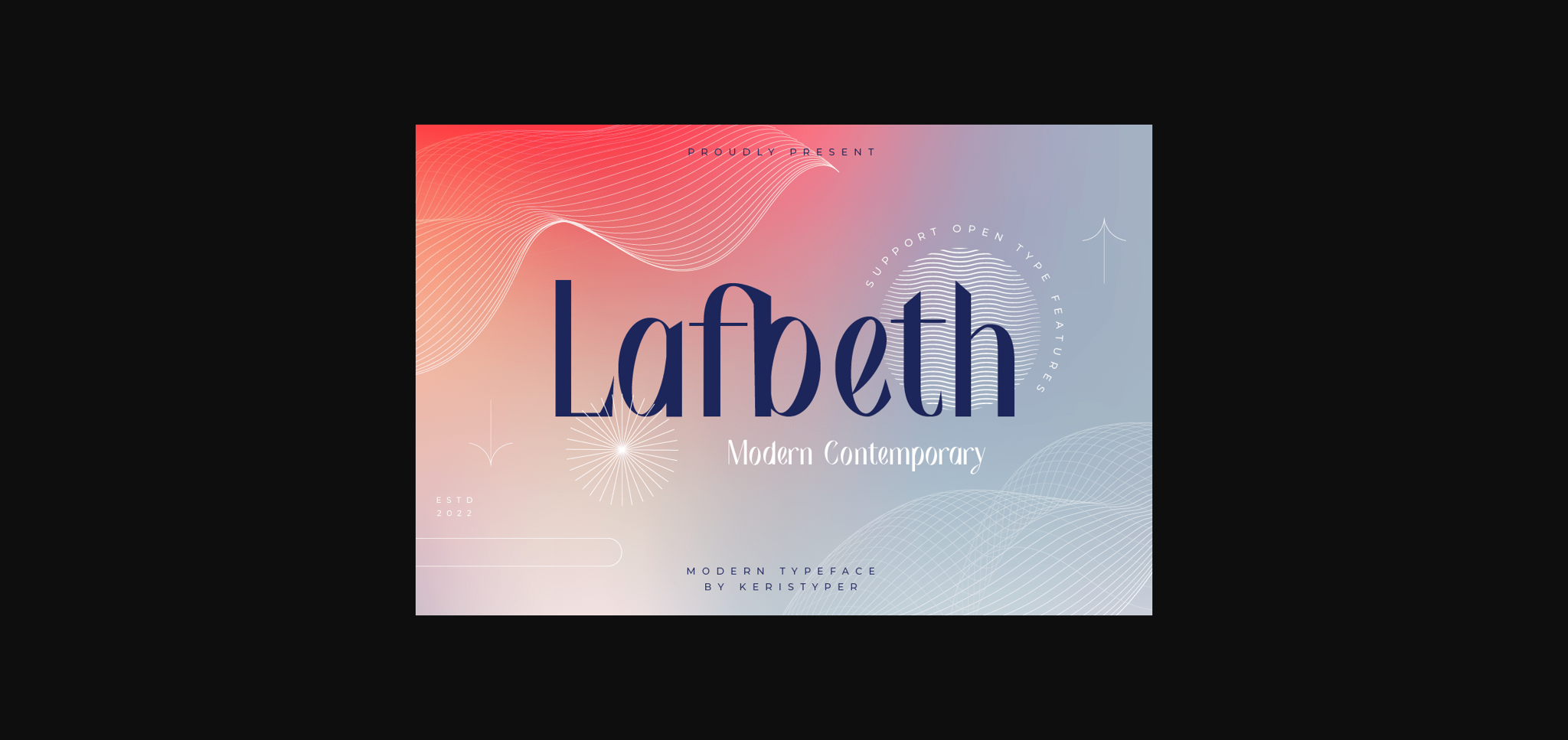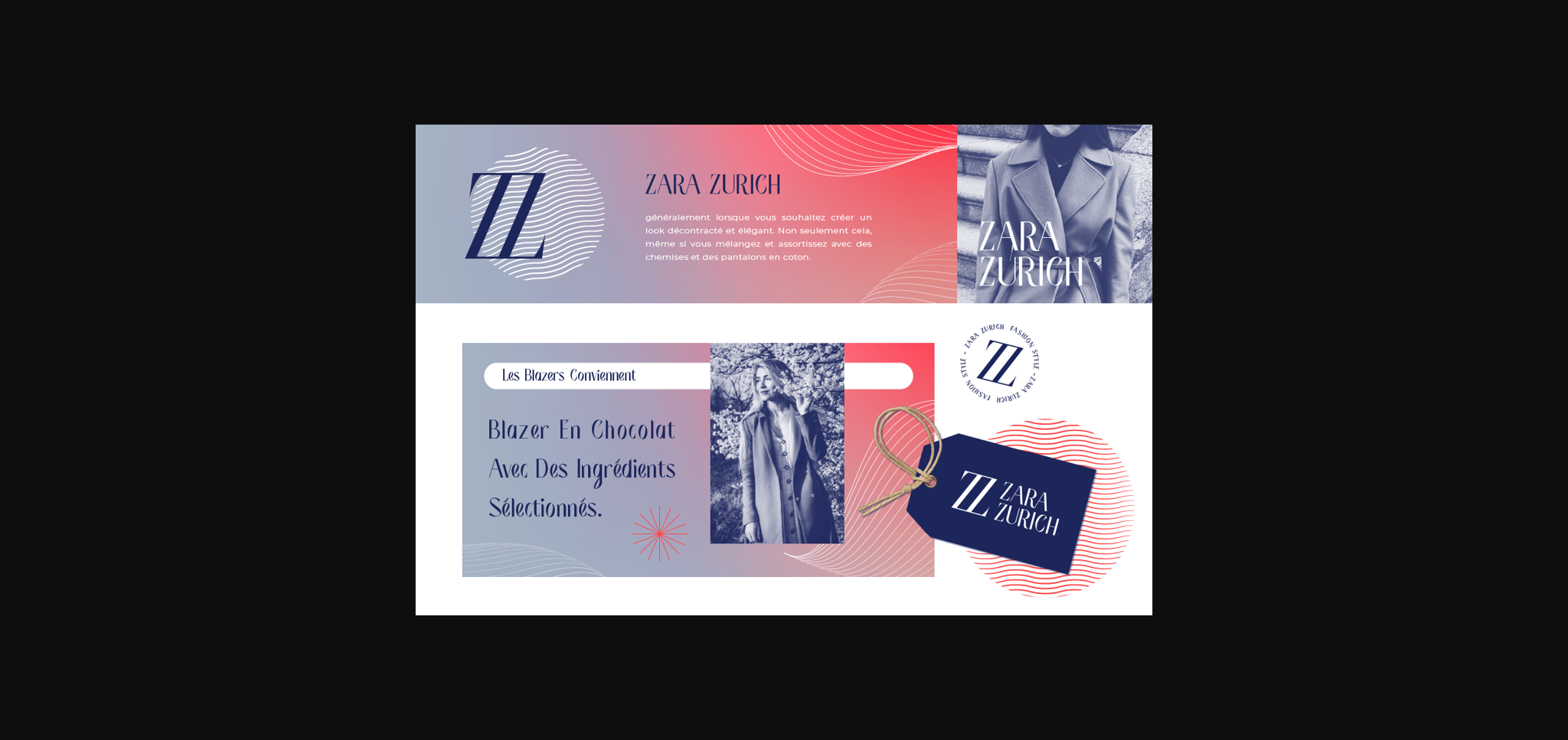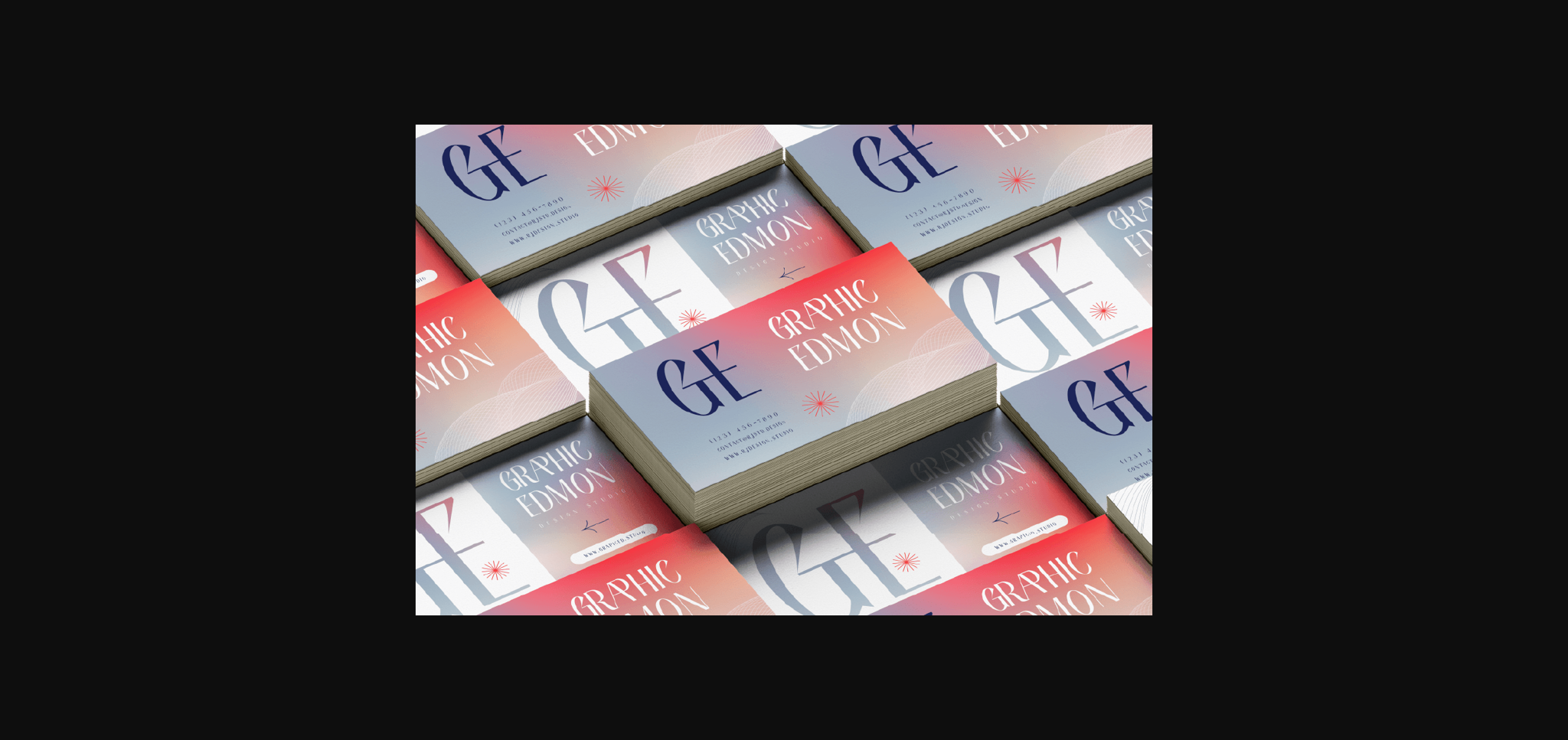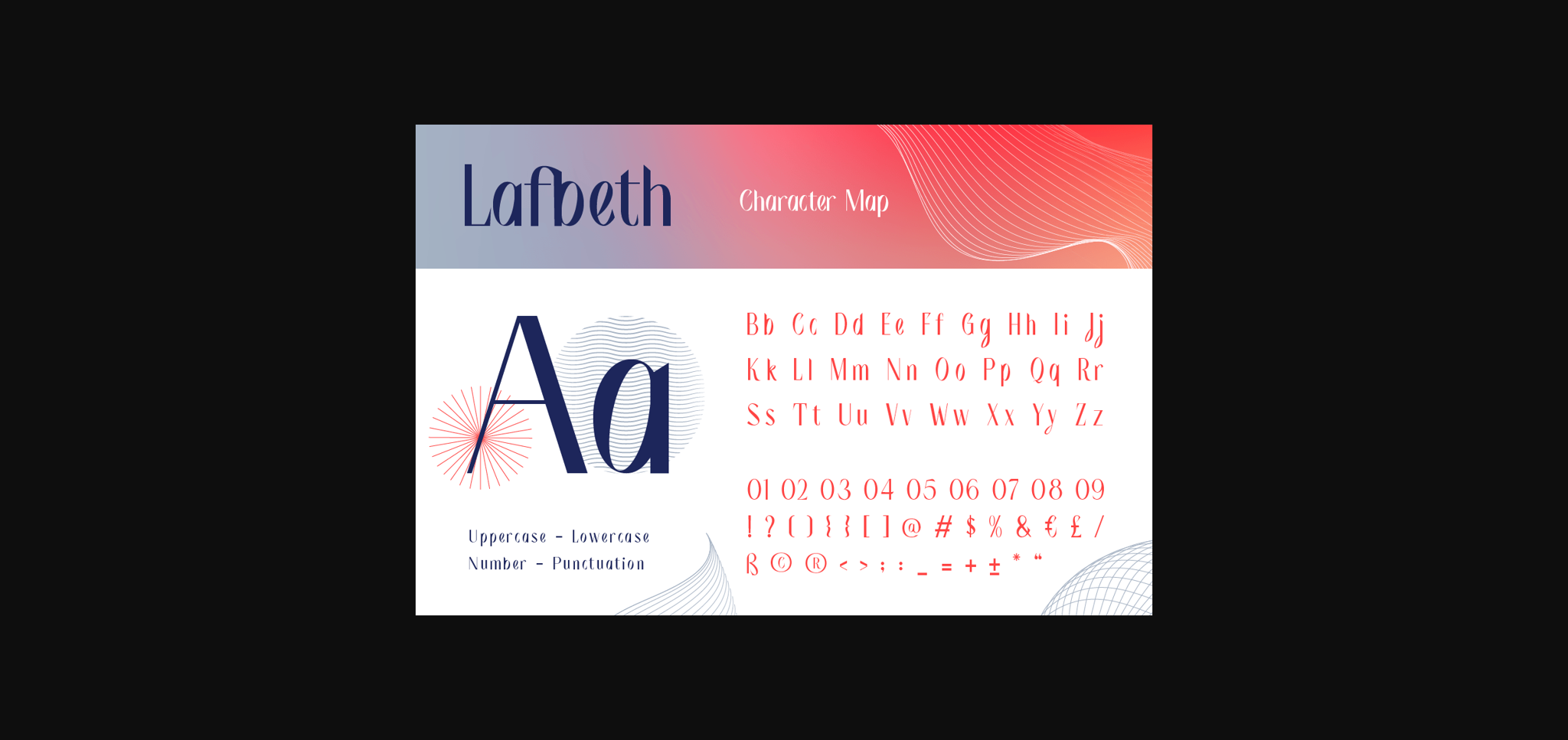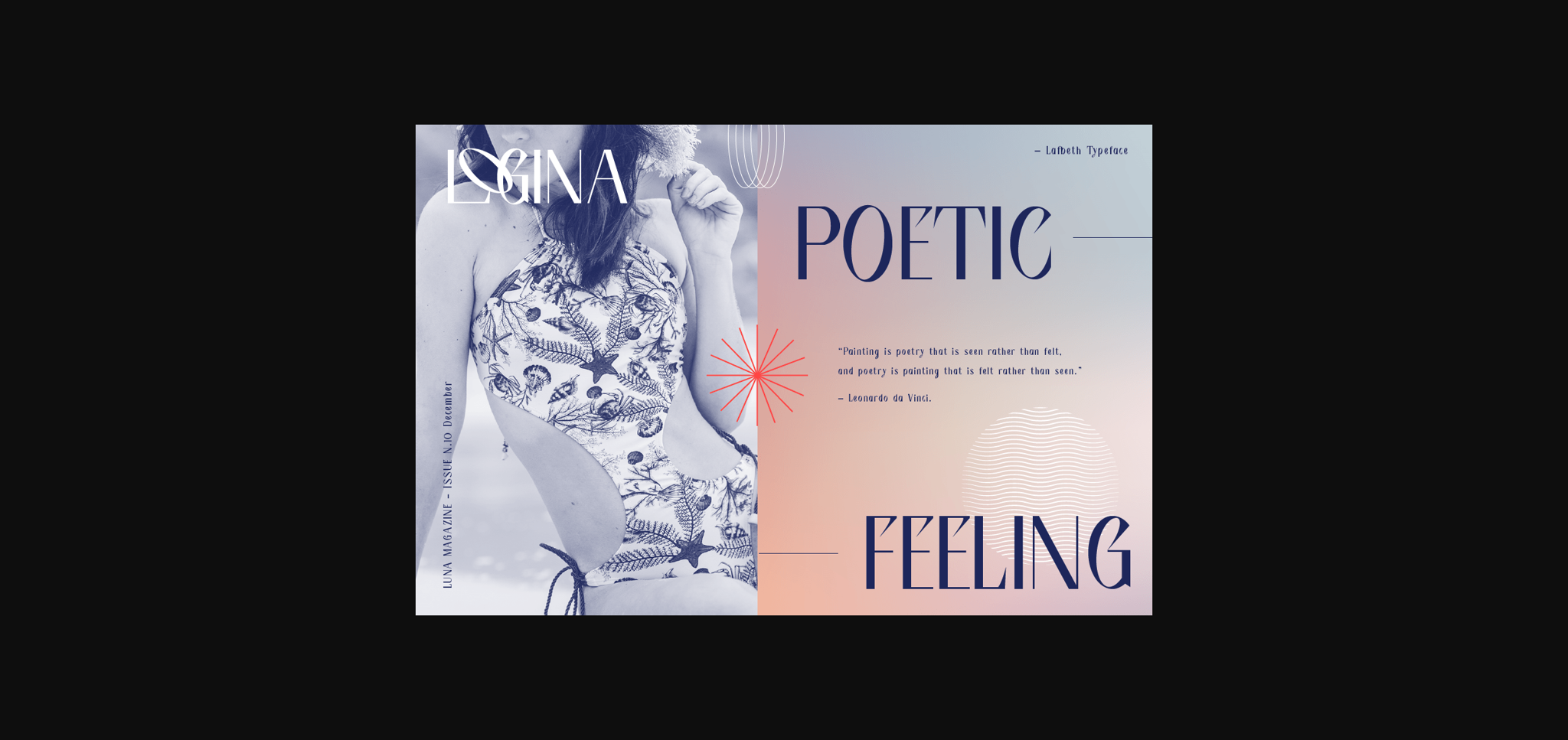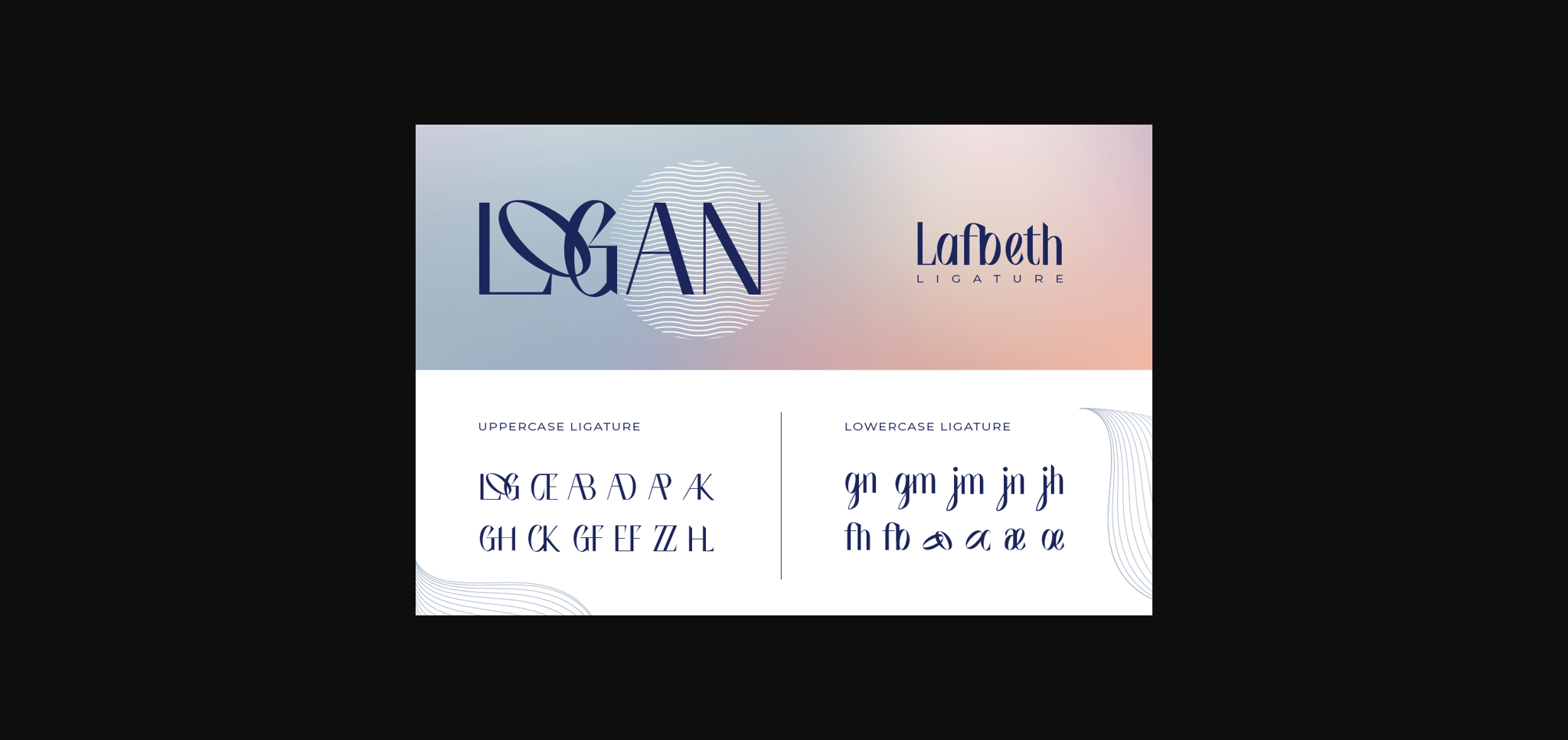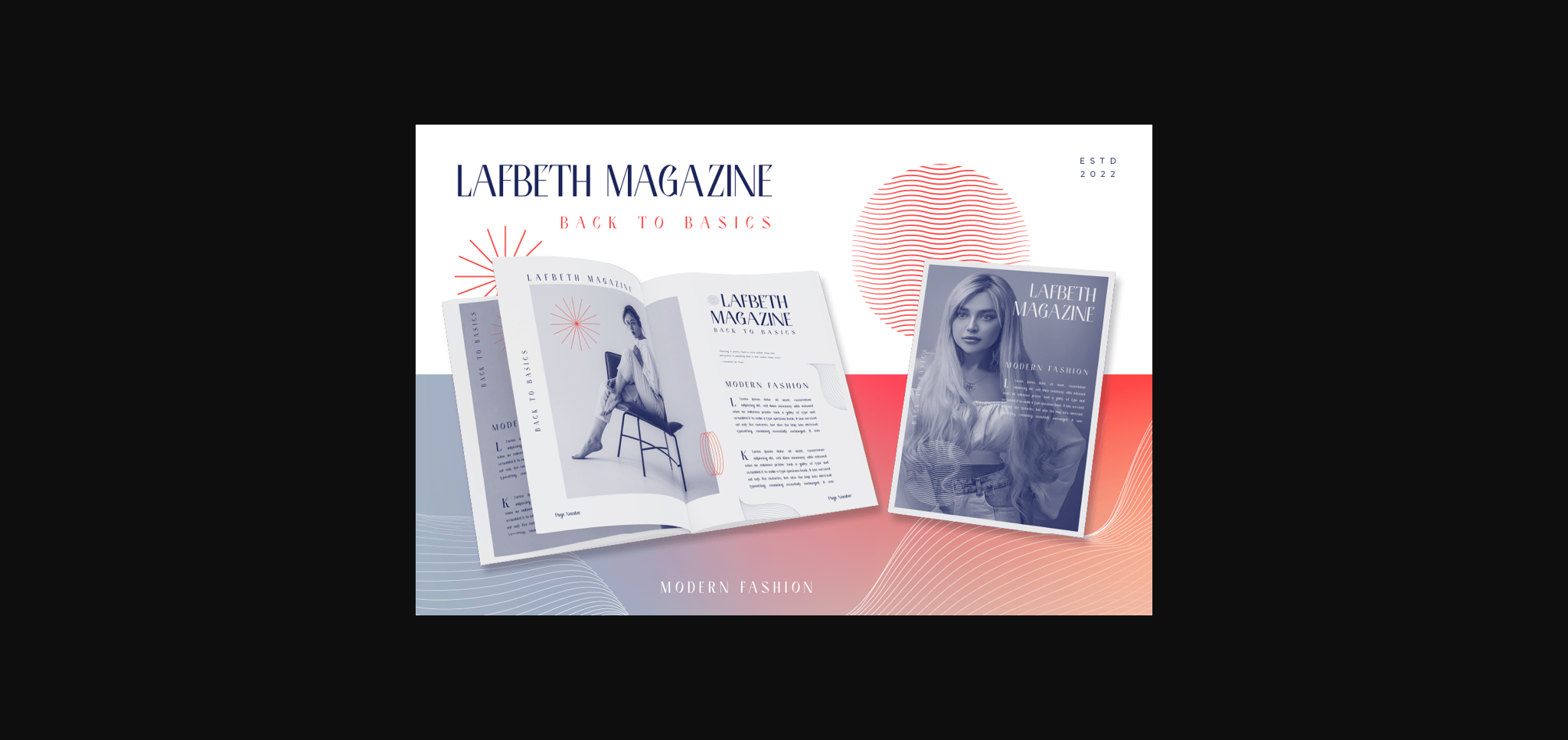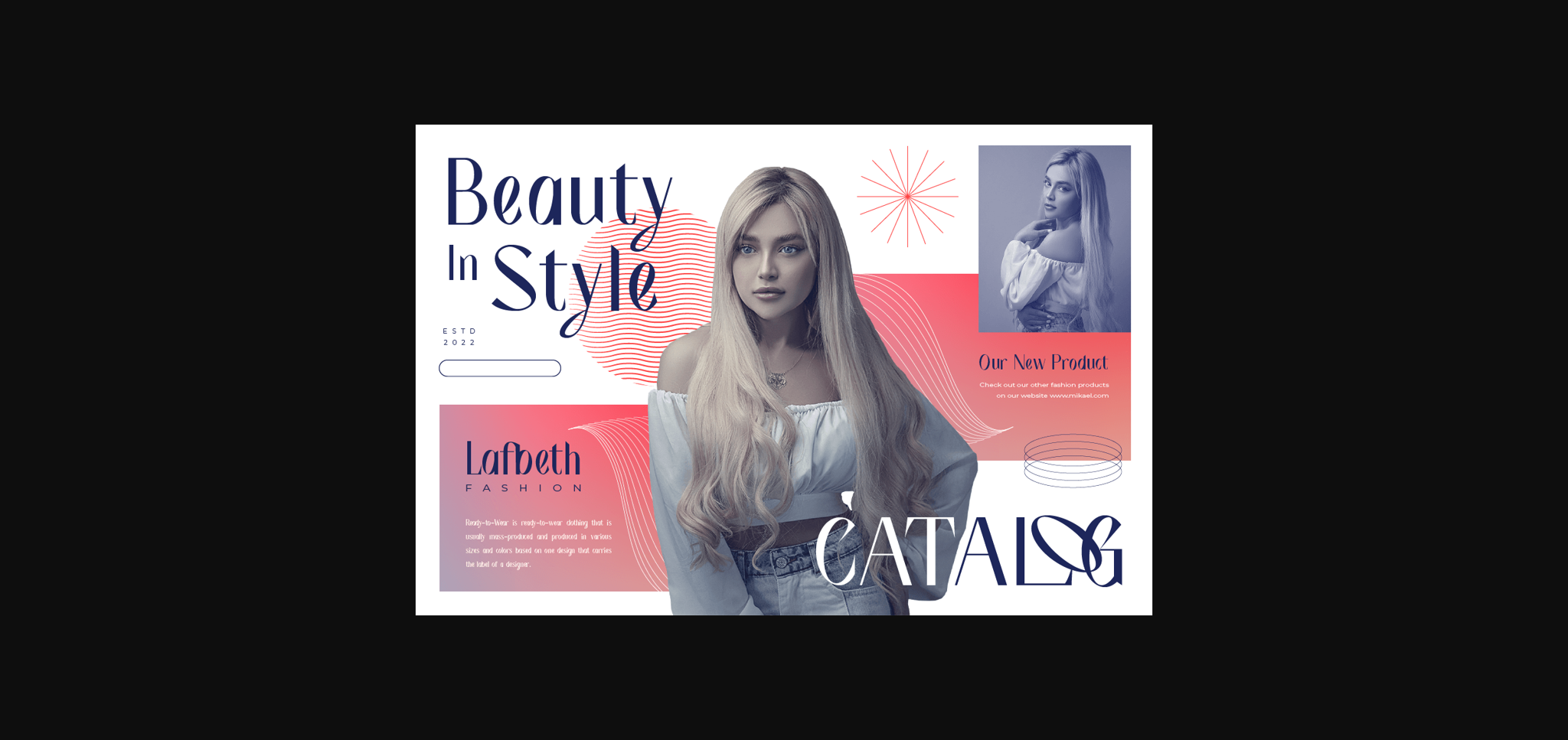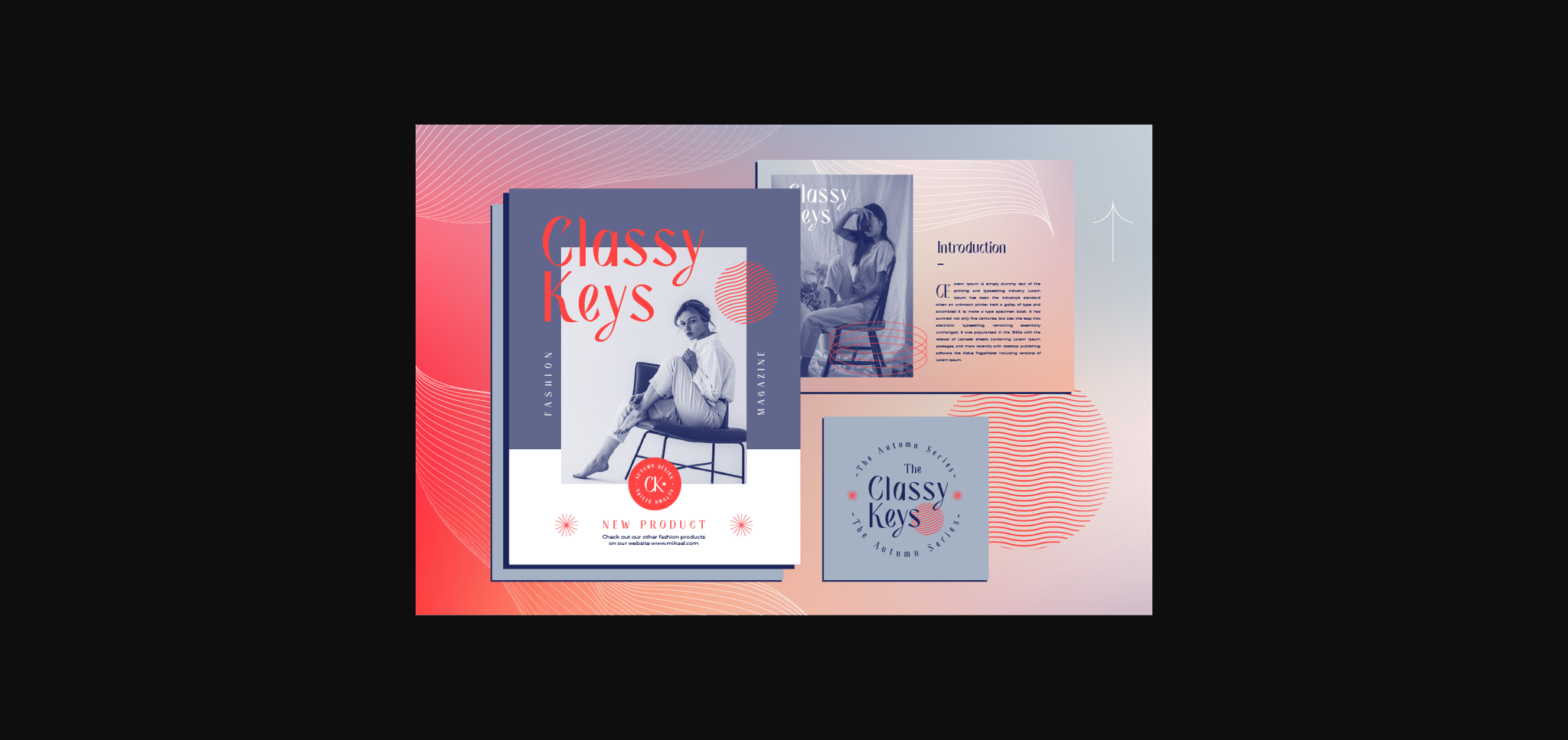
Lafbeth Font
About Lafbeth Font
Lafbeth is a contemporary and stylish sans-serif font inspired by the art deco style. This font is good for logo design, Social media, Movie Titles, Books Titles, short text even long text, and good for your secondary text with a sans or serif.